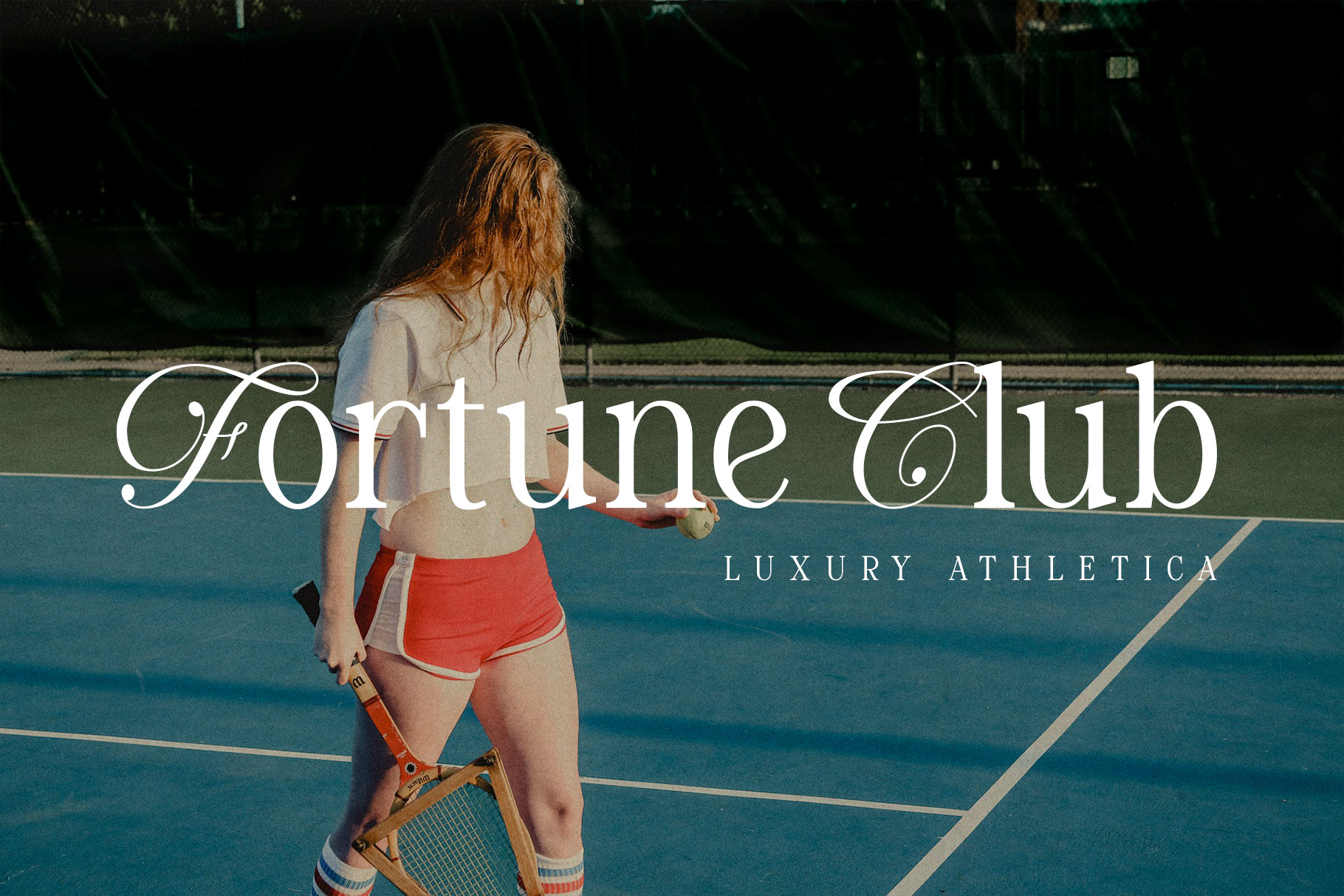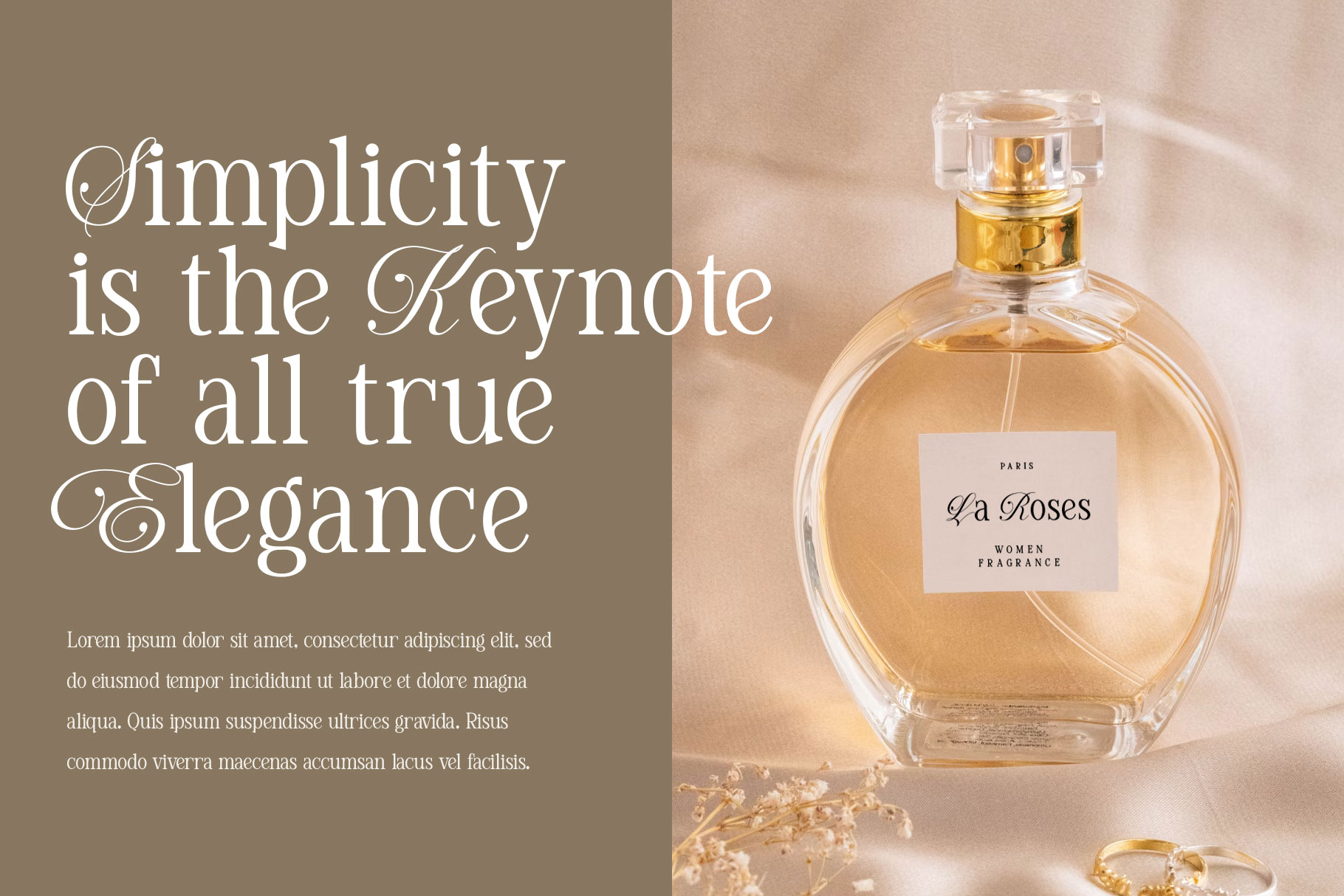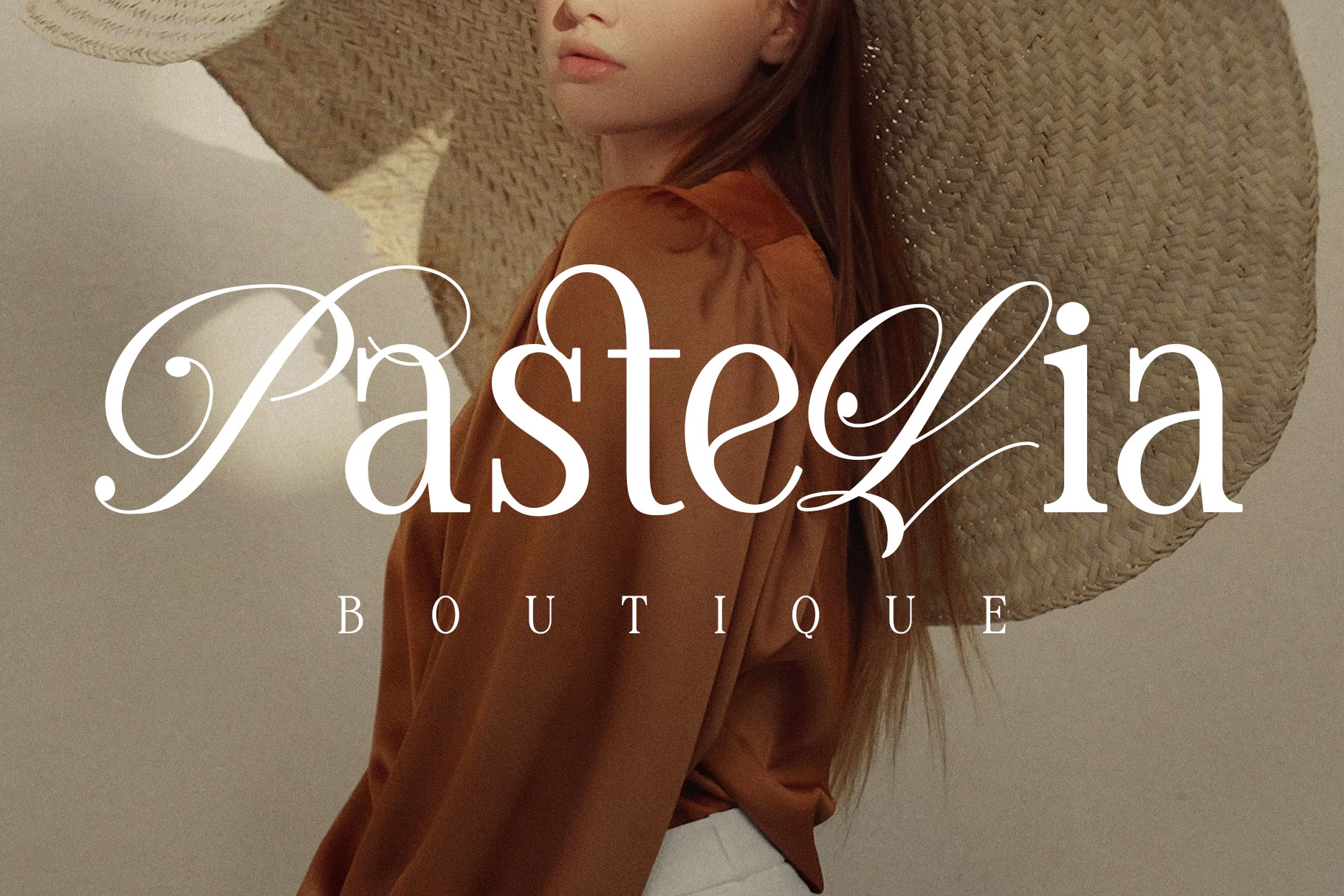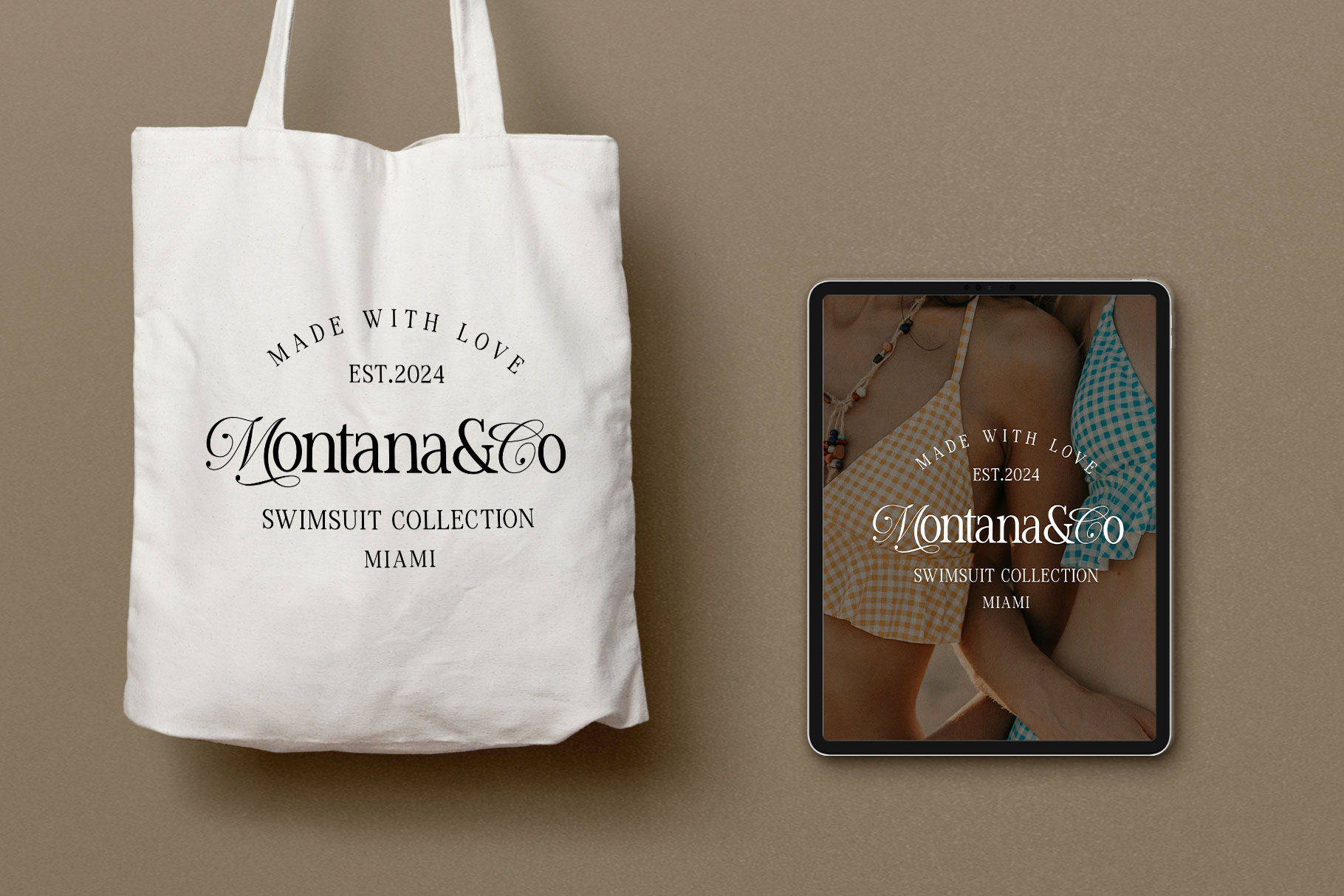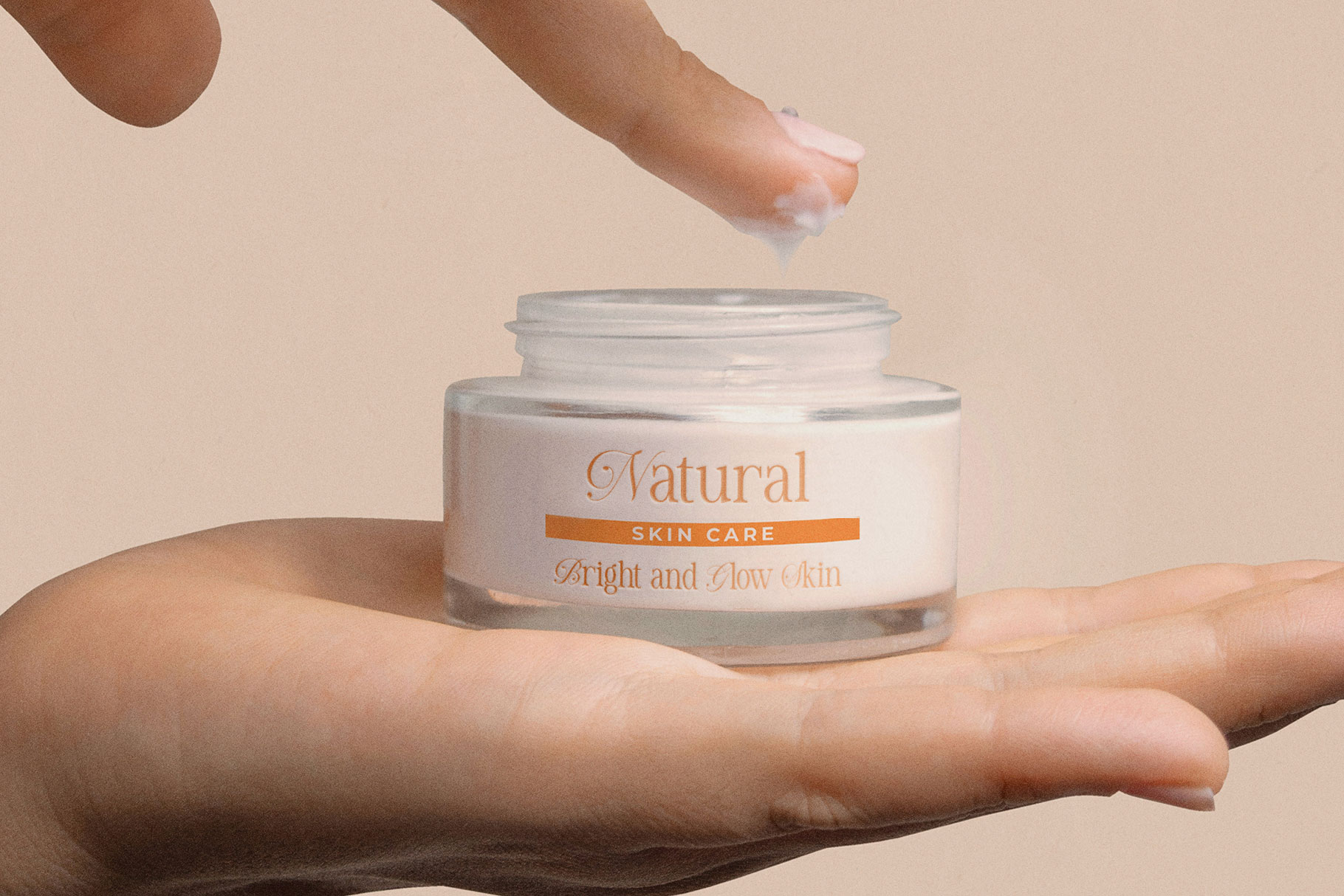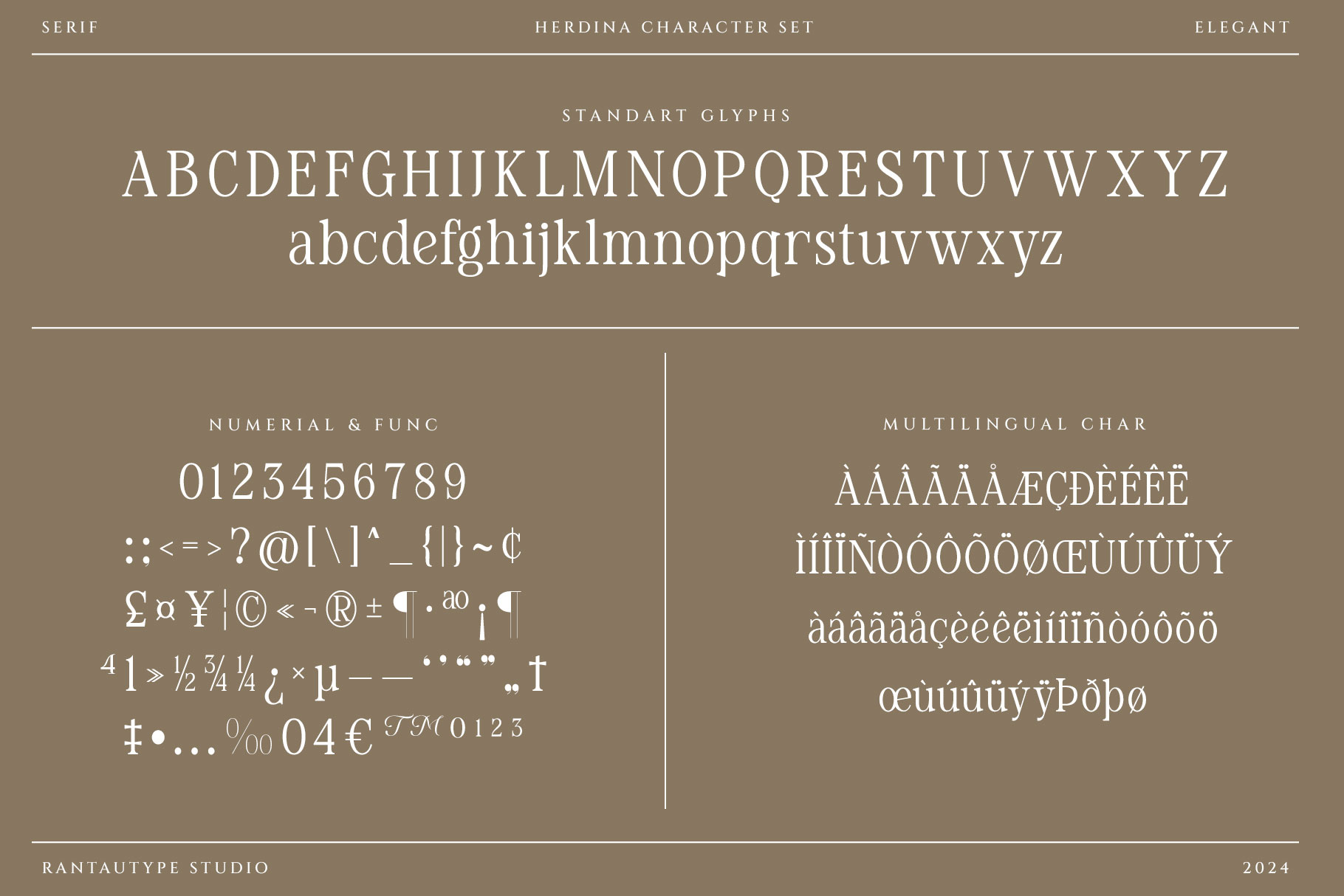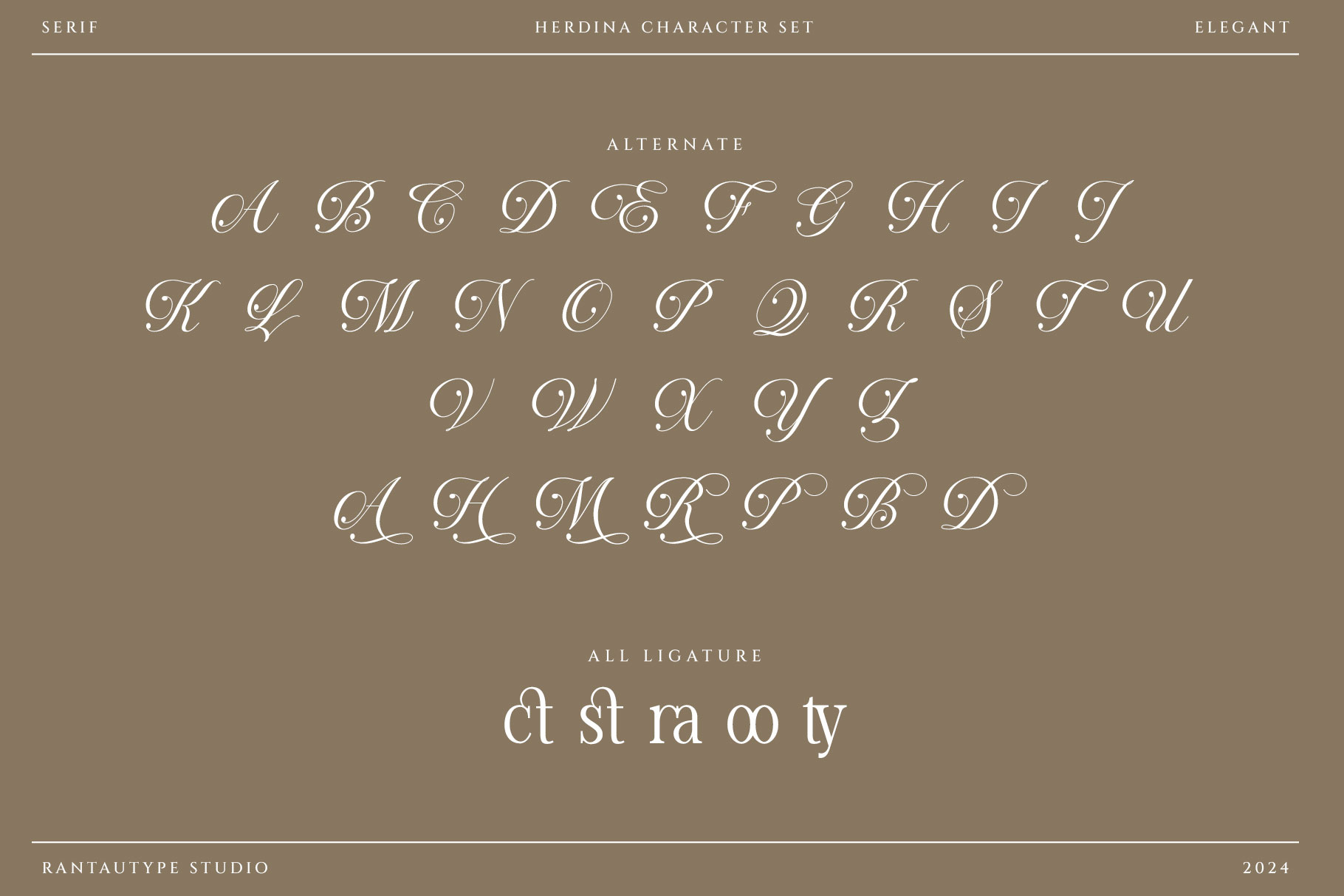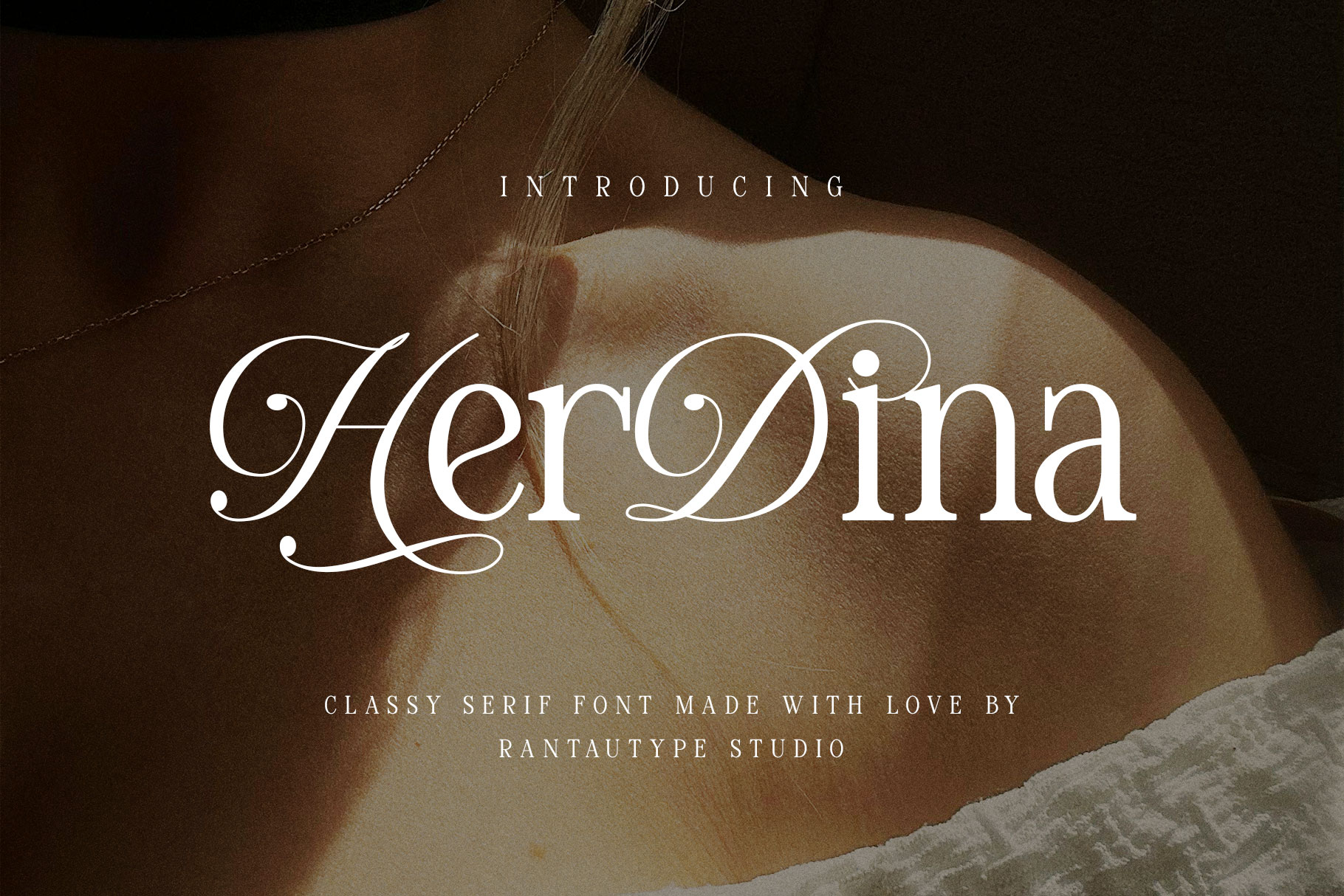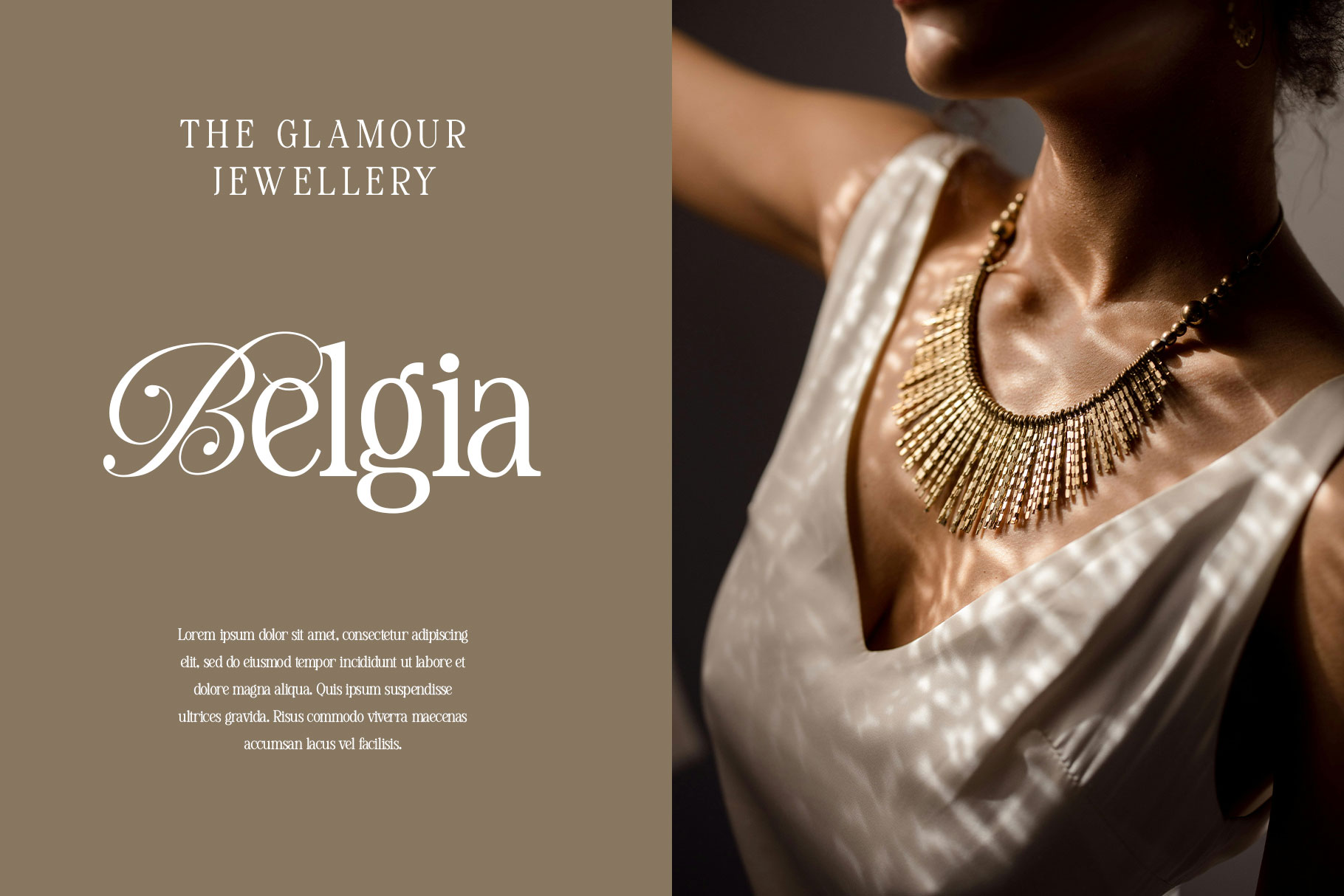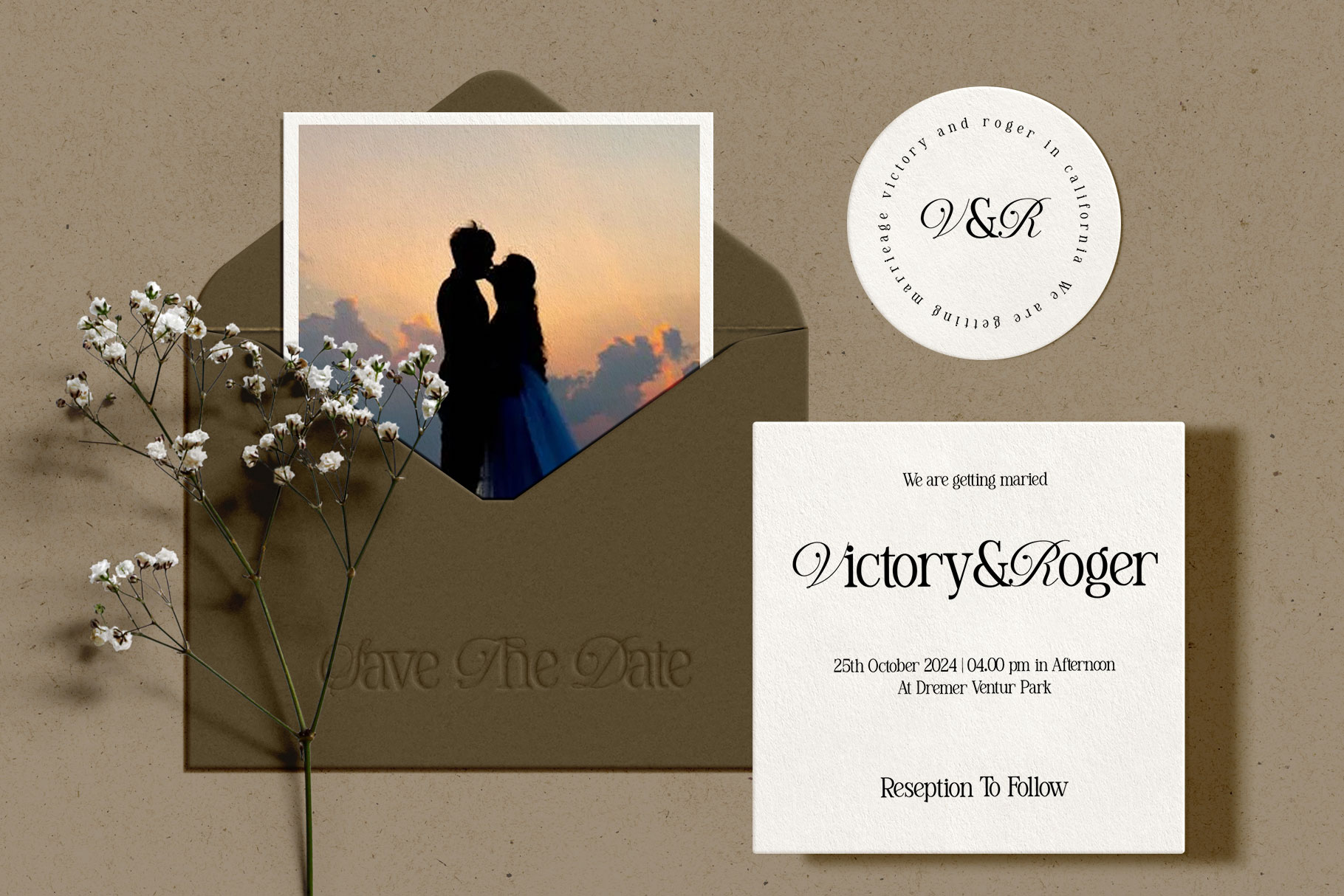
Herdina Classy Serif Font
Herdina is classy combination font with blend script and serif font that embraces grace. Herdina bring elegant touch and feminity in each character, you can mix and match to create beautiful brand or creative design project.
Herdina is a beautiful choice for any creative endeavor, creating elegant, modern, chic, lifestyle design such as logotype, title, cover, branding, invitations, wedding designs, display and magazine, social media posts, advertisements, printed quotes, product packaging, corporate brand, product designs, labels, photography, watermarks, special events and any other project with elegant touch.
Fonts include Multilingual Character for: Afrikaans, Albanian, Asu, Basque, Bemba, Bena, Breton, Chiga, Cornish, Dutch, English, Estonian, Filipino, Finnish, Friulian, Galician, Gusii, Indonesian, Irish, Italian, Kabuverdianu, Kalenjin, Kinyarwanda, Luo, Luxembourgish, Luyia, Machame, North, Oromo, Portuguese, Quechua, Romansh, Rombo, Rundi, Rwa, Samburu, Sango, Sangu, Scottish, Gaelic, Sena, Shambala, Shona, Soga, Somali, Spanish, Swahili, Swedish, Swiss, German.